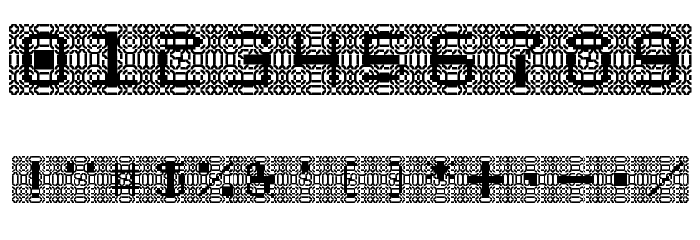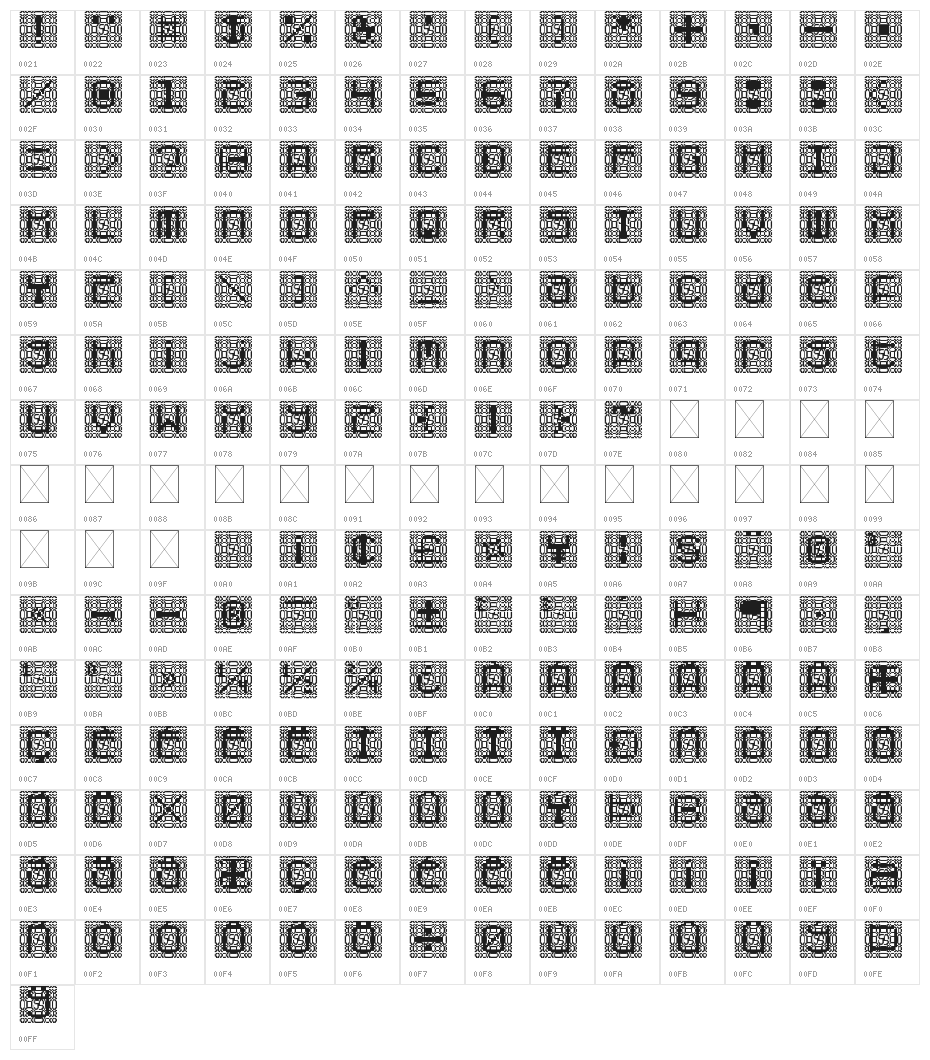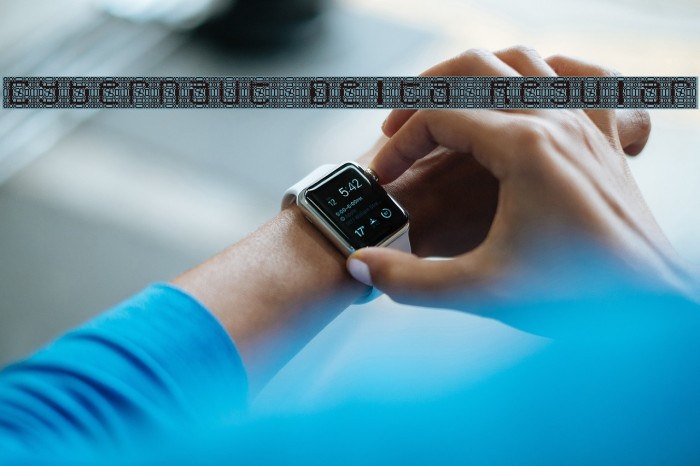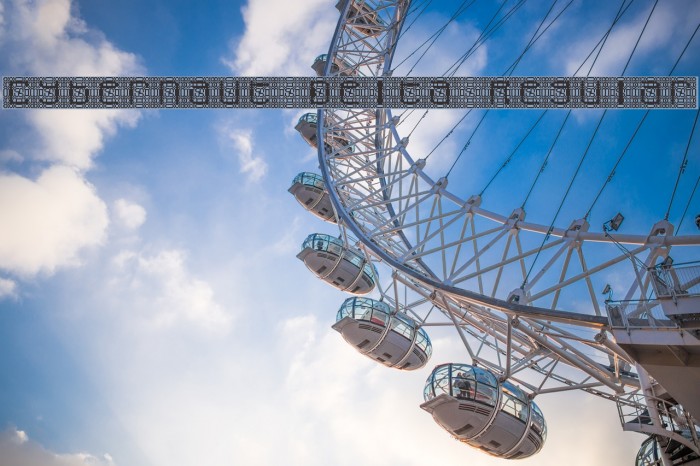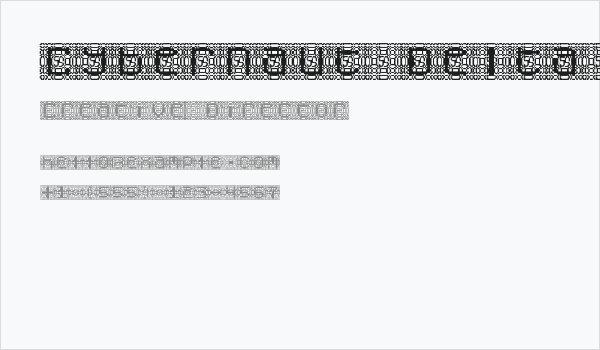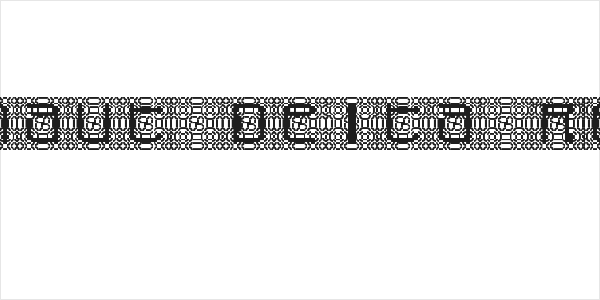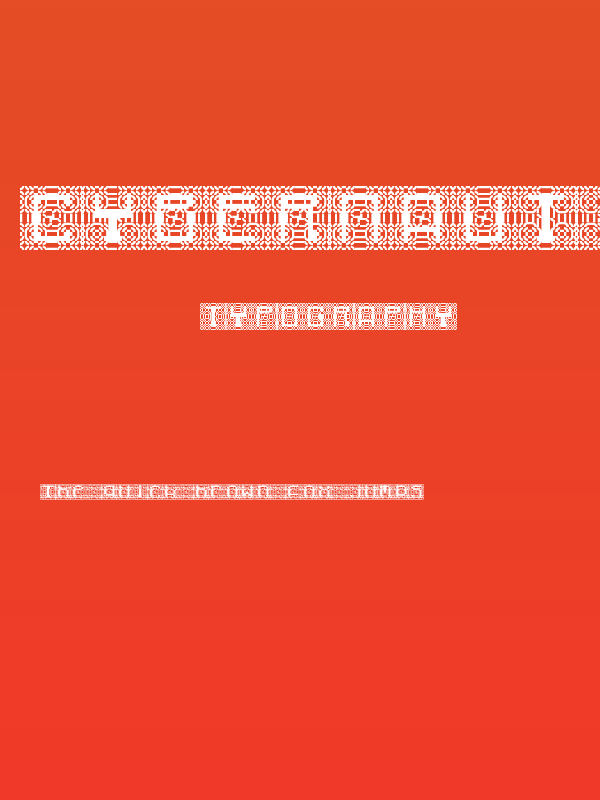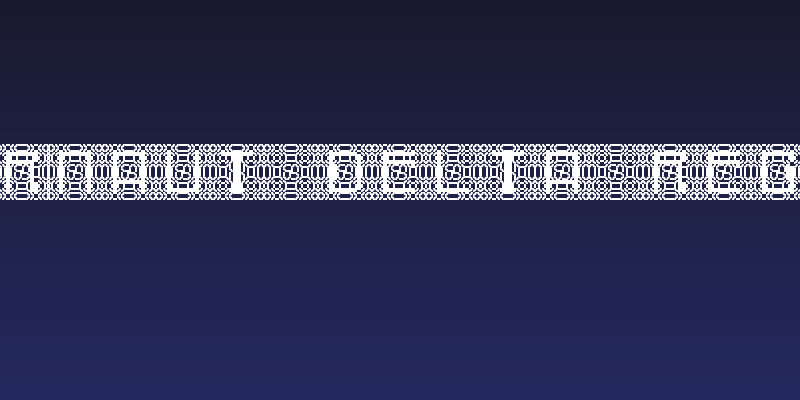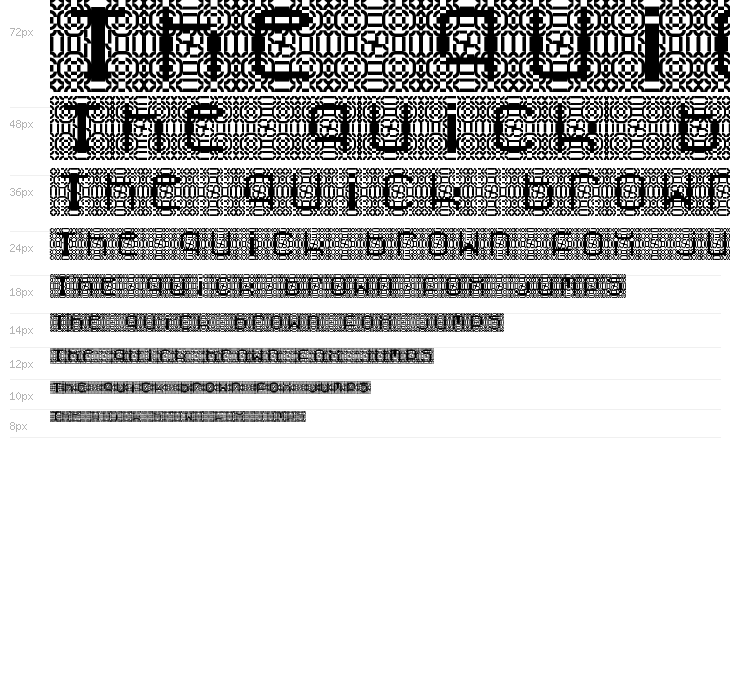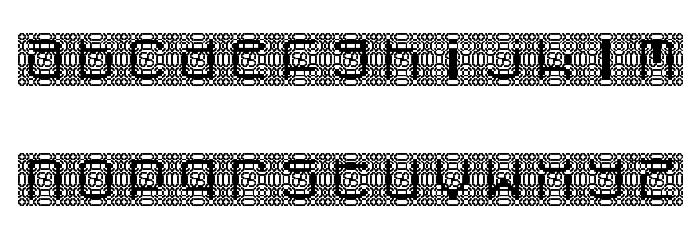
Cybernaut Delta Regular Font
Cybernaut Delta Regular Description
This font features a futuristic and digital aesthetic, characterized by its intricate geometric patterns and grid-like structure. Each character is composed of a series of interconnected shapes, giving it a complex and technological appearance. The design is highly detailed, with a consistent pattern that runs through each letter and number, creating a cohesive and unified look. The font's style is reminiscent of digital circuits or computer interfaces, making it ideal for projects that require a modern and tech-savvy feel. Its unique design ensures that it stands out, making it suitable for eye-catching headlines or creative branding.
| Proposed Projects | Ideal for technology branding, sci-fi themed projects, digital art, and modern advertising. |